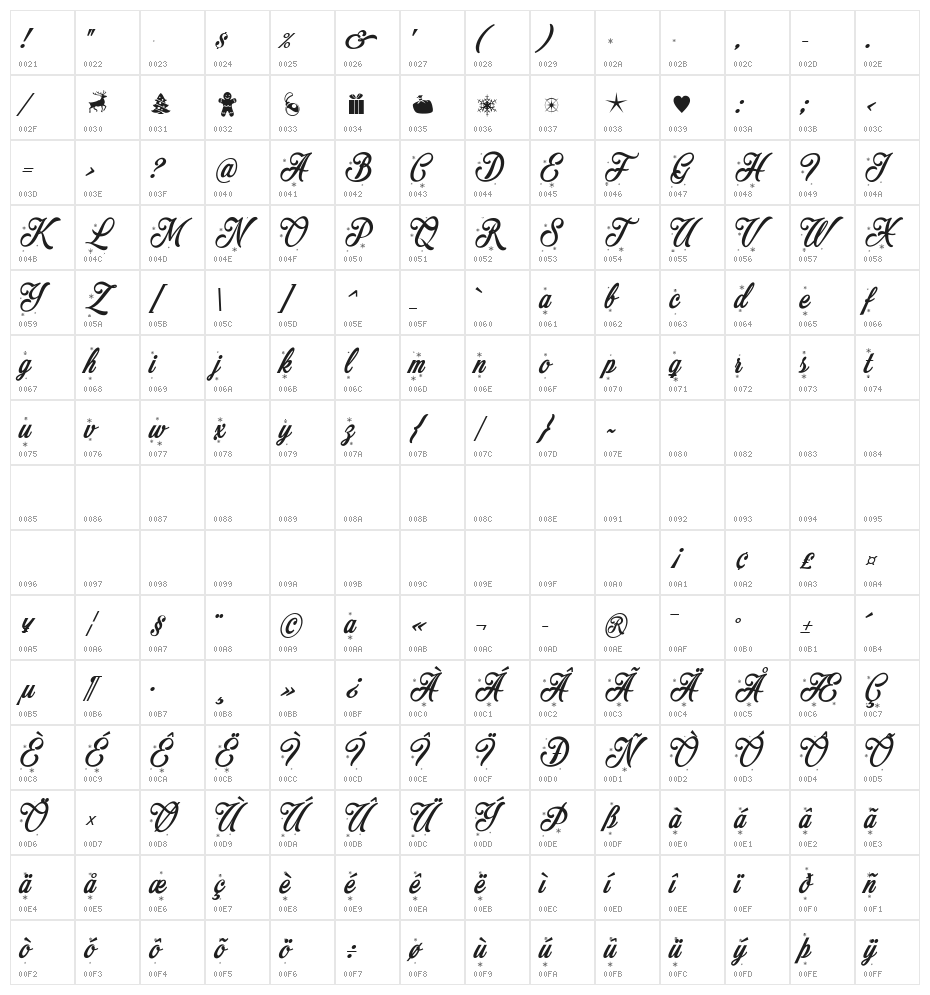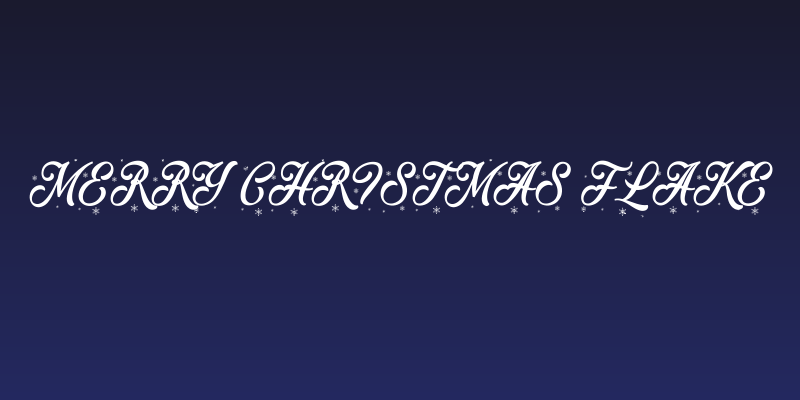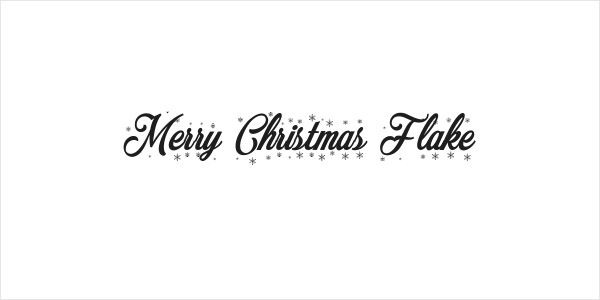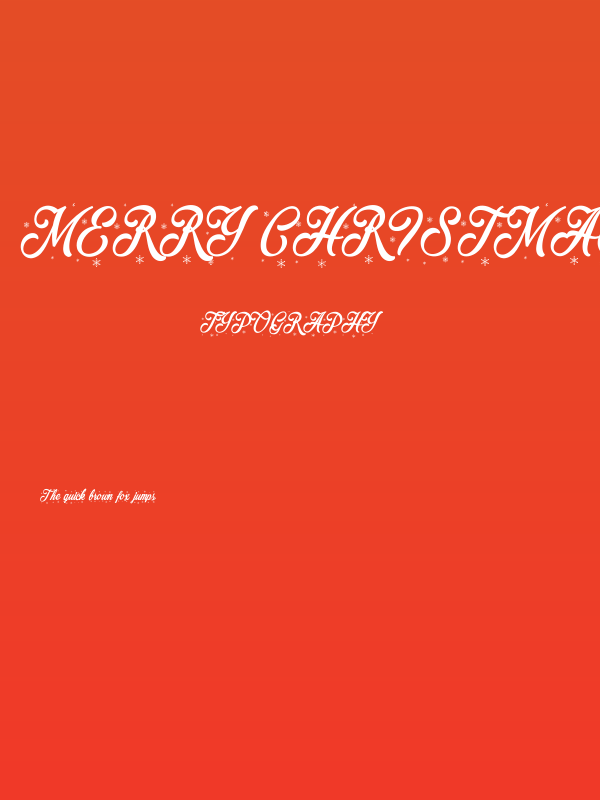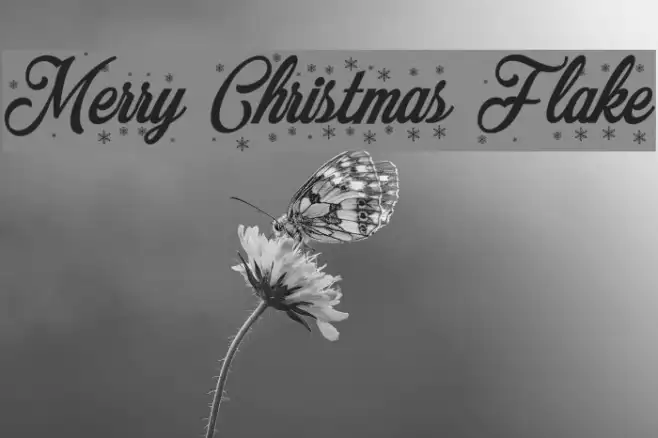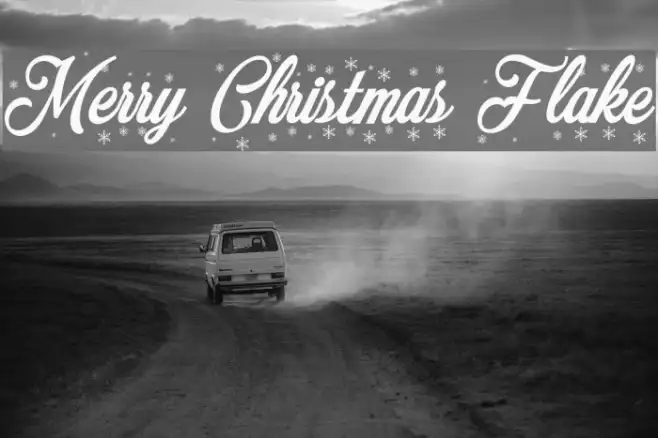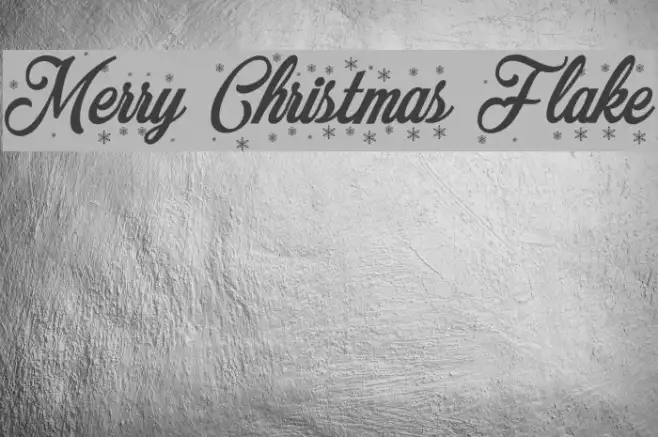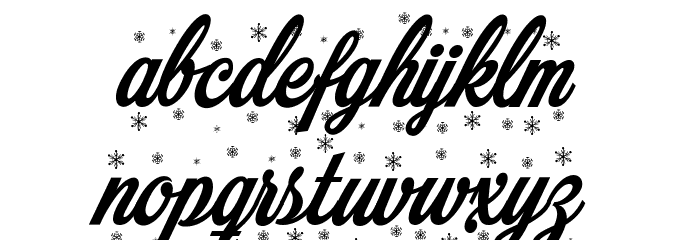
Merry Christmas Flake Font
Merry Christmas Flake Description
This festive font features elegant, flowing script letters adorned with delicate snowflake accents, creating a whimsical and seasonal feel. The uppercase letters are gracefully curved, with each character embellished by a snowflake, enhancing the holiday theme. The lowercase letters maintain a similar style, offering a smooth and continuous flow that is both decorative and legible. The font includes a variety of holiday-themed symbols, such as reindeer, Christmas trees, and snowflakes, adding to its versatility for seasonal projects. The overall design is playful yet sophisticated, making it ideal for festive occasions.
| Use Case | Headlines, Logos, Decorative text |
| Proposed Projects | Ideal for holiday cards, festive invitations, seasonal branding, and decorative posters. |